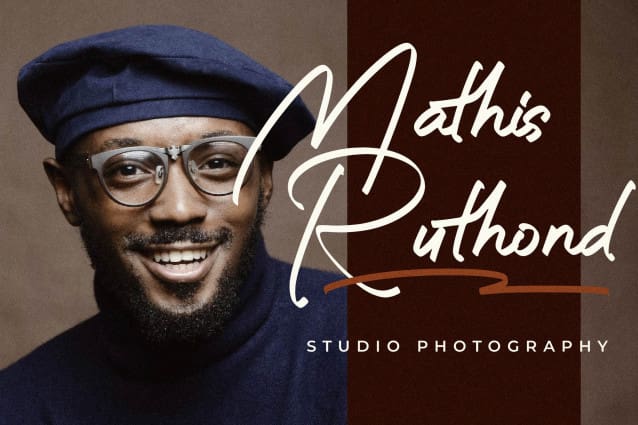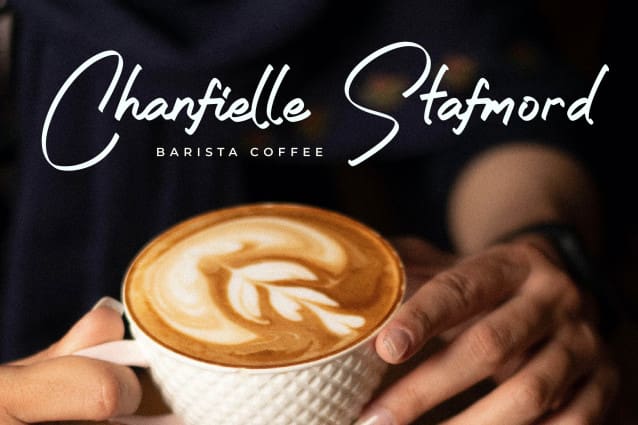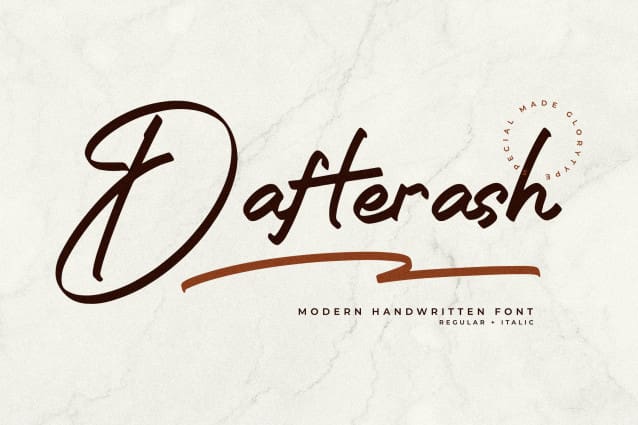
Dafterash Script Font
Dafterash Script Font is a flowing handwritten font, described by an elegant touch, perfect for your favorite projects. Fall in love with its incredibly distinct and timeless style and use it to create spectacular designs!